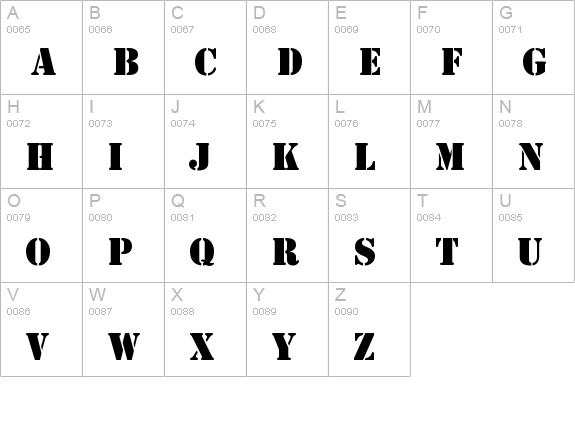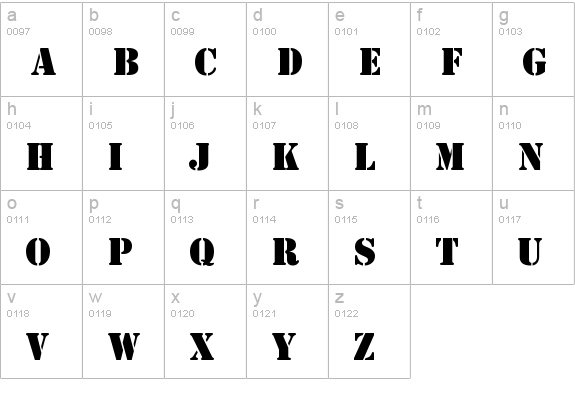
QTMilitary Regular Font Details
QTMilitary Regular is the standard, neutral variant in the QTMilitary typeface family \xE2\x80\x94 well suited to general body text, paragraphs, and standard typographic work.
QTMilitary Regular font is a powerful and bold typeface that exudes confidence and strength. Its sharp edges and clean lines make it perfect for military-themed designs, posters, logos, and anything that requires a touch of authority. This font is meticulously designed to capture the essence of military precision, making it a go-to choice for designers and typographers who want to convey a sense of discipline and order. Its sturdy and robust appearance gives any text a commanding presence, making it stand out in any project. What makes QTMilitary Regular font even more appealing is that it is available for free. That's right, you can freely download this amazing font at FontsMarket.com. This means that you can add a touch of military flair to your designs without breaking the bank. With its versatility and boldness, QTMilitary Regular font is a must-have for anyone looking to create impactful and attention-grabbing designs. Whether you are designing a military-inspired poster, a logo for a security company, or simply want to add a touch of strength to your typography, this font will surely exceed your expectations. Download QTMilitary Regular font for free at FontsMarket.com and unleash the power of military-inspired typography in your designs.